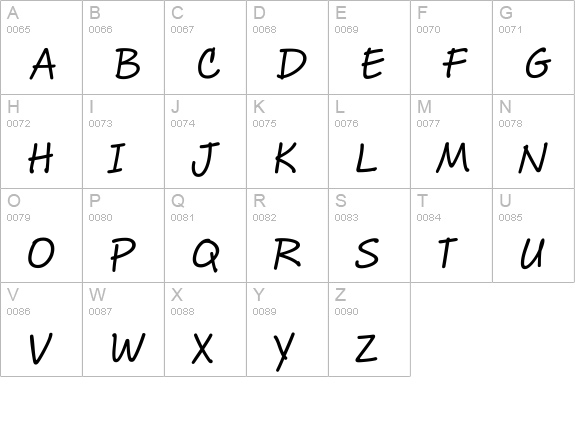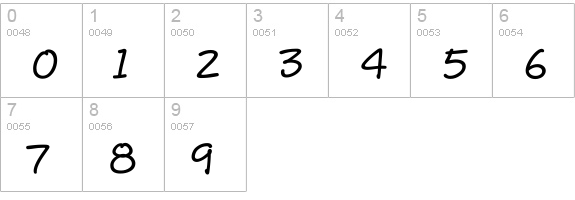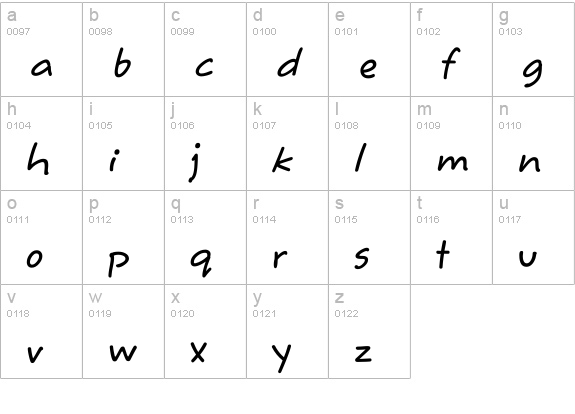
MaritaTextMediumHMK Font Details
MaritaTextMediumHMK is a stunning font that effortlessly combines elegance and modernity. This font exudes a sense of sophistication, making it perfect for a wide range of design projects. Its clean lines and balanced proportions give it a timeless appeal that is sure to captivate any audience. Designed with meticulous attention to detail, MaritaTextMediumHMK is the epitome of typographic excellence. Every curve and stroke has been carefully crafted to ensure legibility and readability, even at smaller sizes. Its medium weight strikes the perfect balance between boldness and delicacy, making it versatile for both headings and body text. One of the standout features of MaritaTextMediumHMK is its versatility. Whether you are designing a logo, creating a brand identity, or crafting a beautiful website, this font will complement your work effortlessly. Its timeless appeal and modern charm make it suitable for a wide range of industries, from fashion and beauty to technology and finance. And the best part? MaritaTextMediumHMK is available for free! You can easily download this font from FontsMarket.com, a trusted source for high-quality fonts. This means that you can add a touch of elegance and sophistication to your designs without breaking the bank. So why wait? Download MaritaTextMediumHMK today and elevate your design projects to new heights. With its timeless appeal, versatility, and the fact that it is freely available, this font is a must-have for any designer or creative professional.